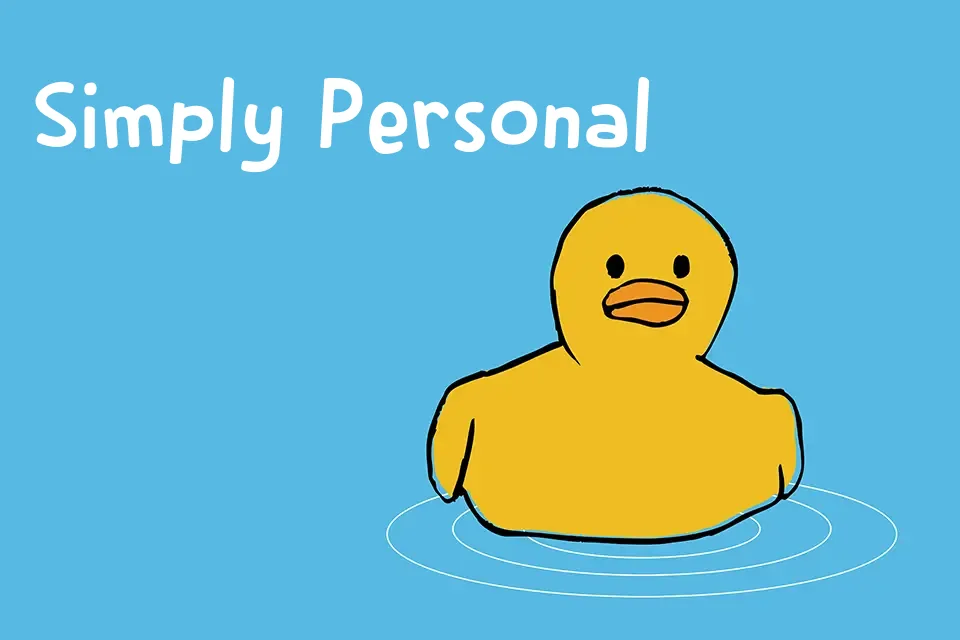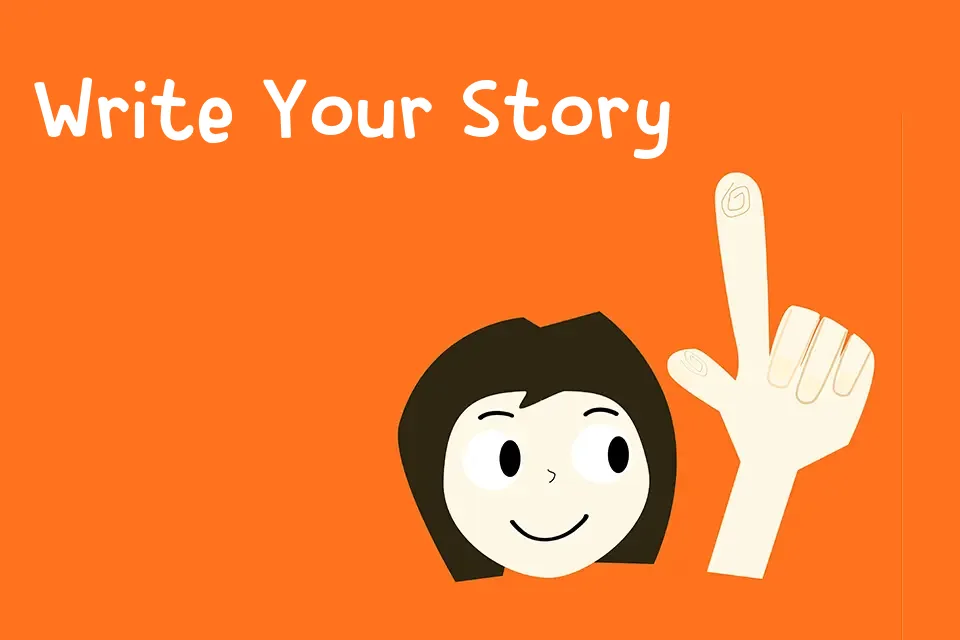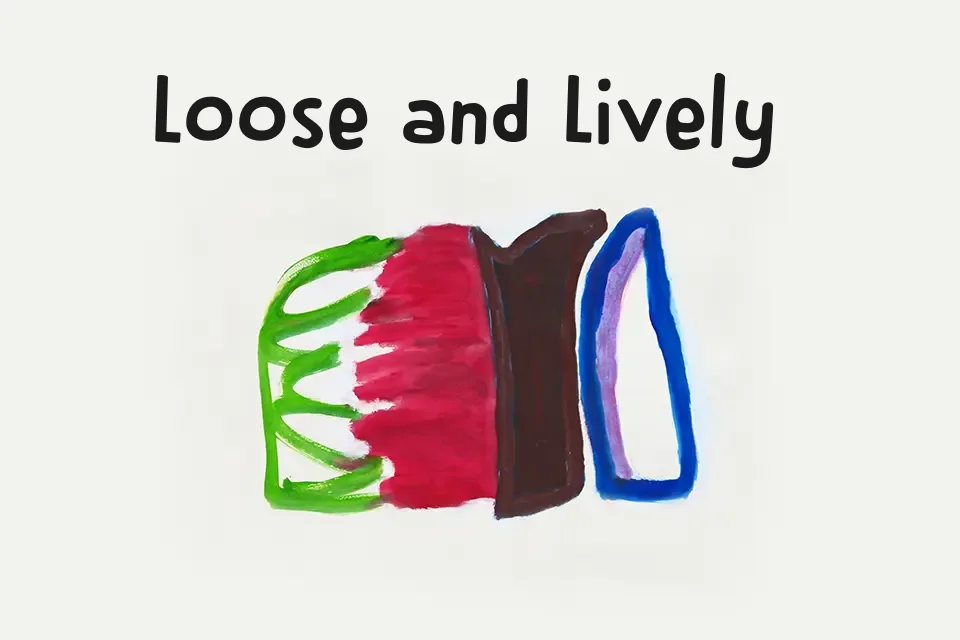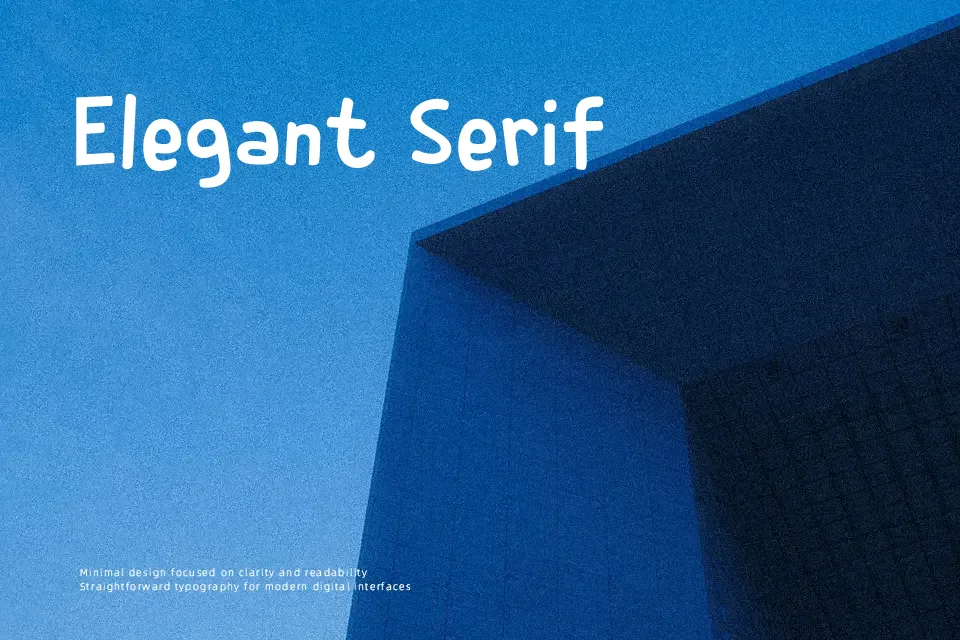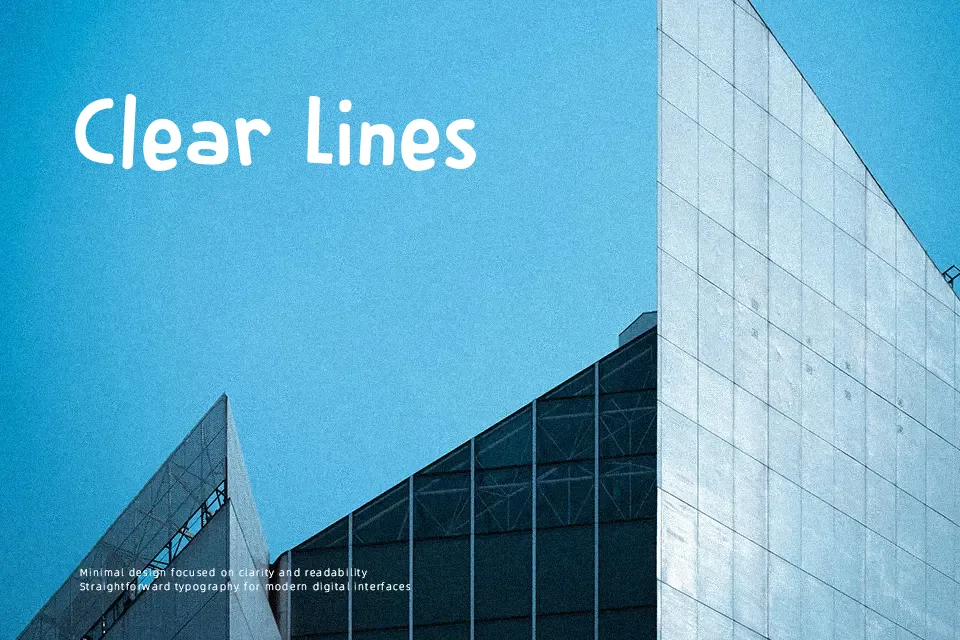
Rumpelgeist Font
Starting with a highly animated structure, Rumpelgeist Font features uneven stroke thickness and a distinctively bouncy baseline. The letterforms display a hand-drawn, cartoonish quality with quirky proportions that give the typeface a mischievous, friendly personality. The loose spacing between characters helps maintain a lively, organic rhythm in larger headlines. This typeface performs best when displayed at prominent sizes, making it an excellent choice for children’s book covers, seasonal event posters, and playful product packaging. However, the erratic baselines and irregular character widths become much less effective at smaller sizes. Dense forms reduce continuous reading comfort, meaning this design should strictly be reserved for short, attention-grabbing display text.